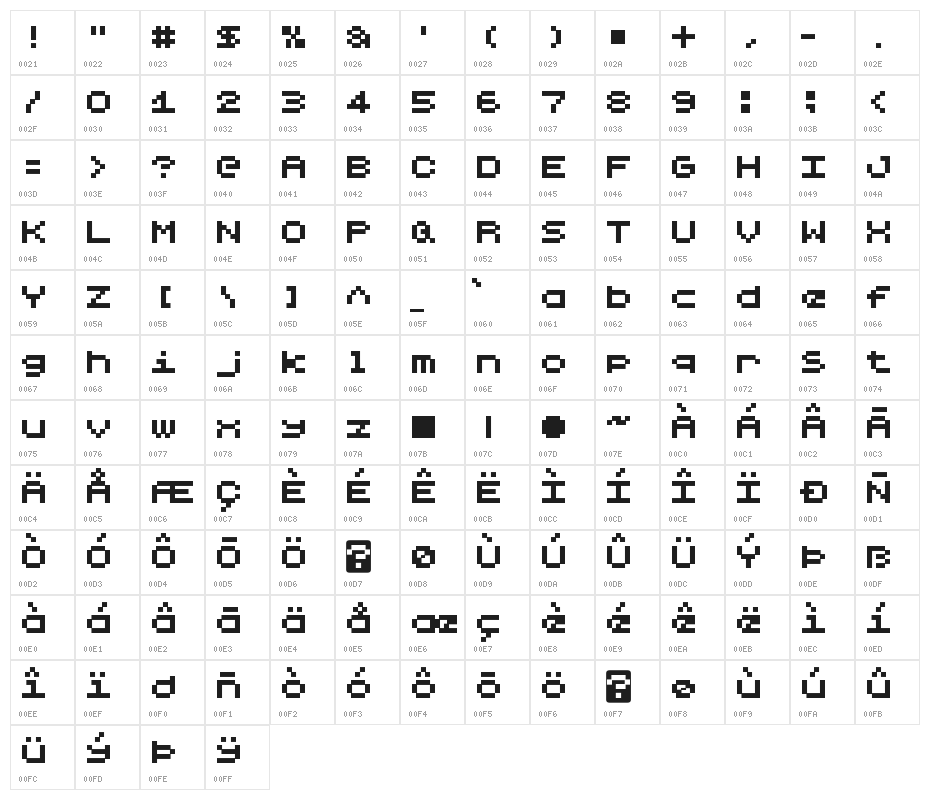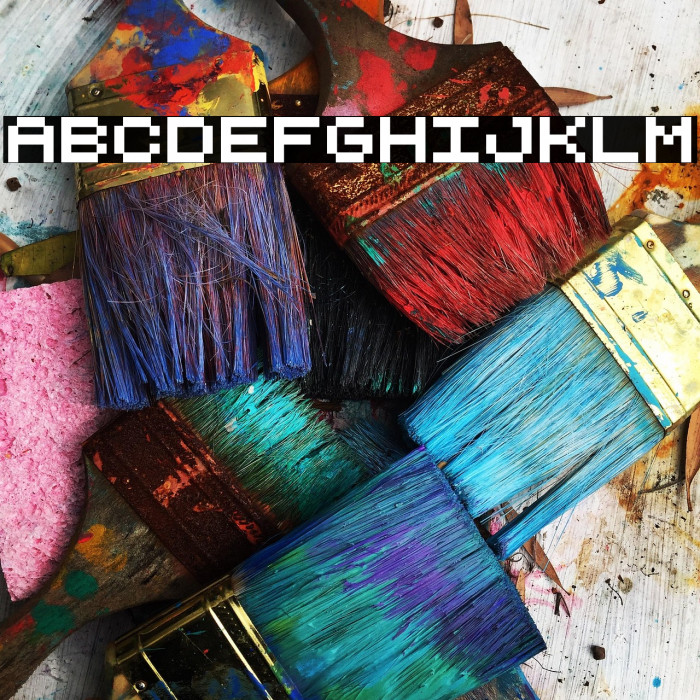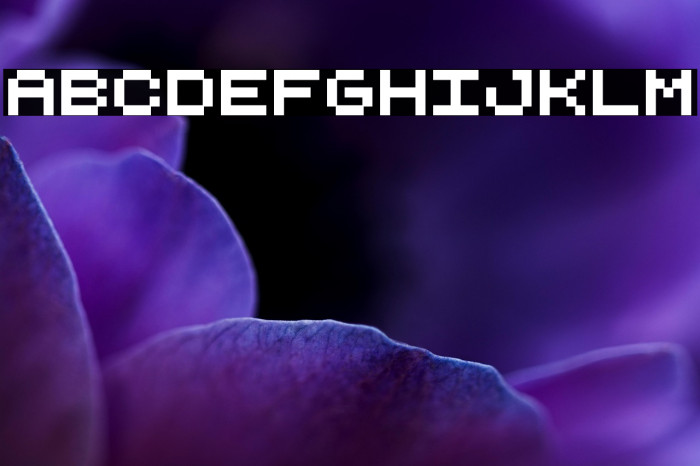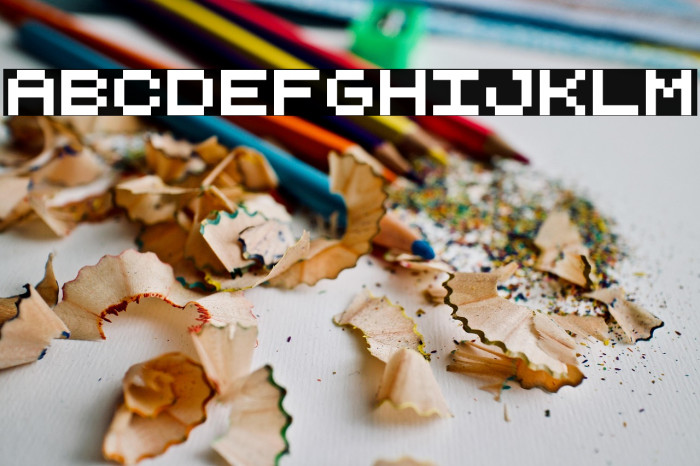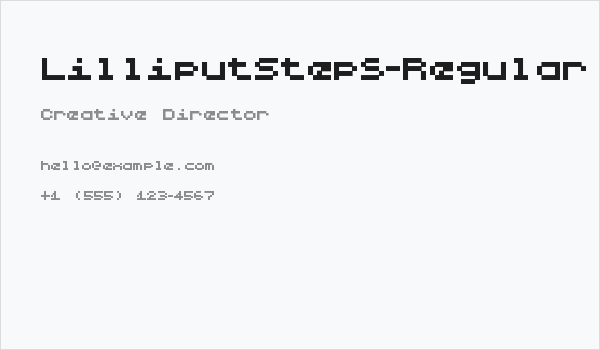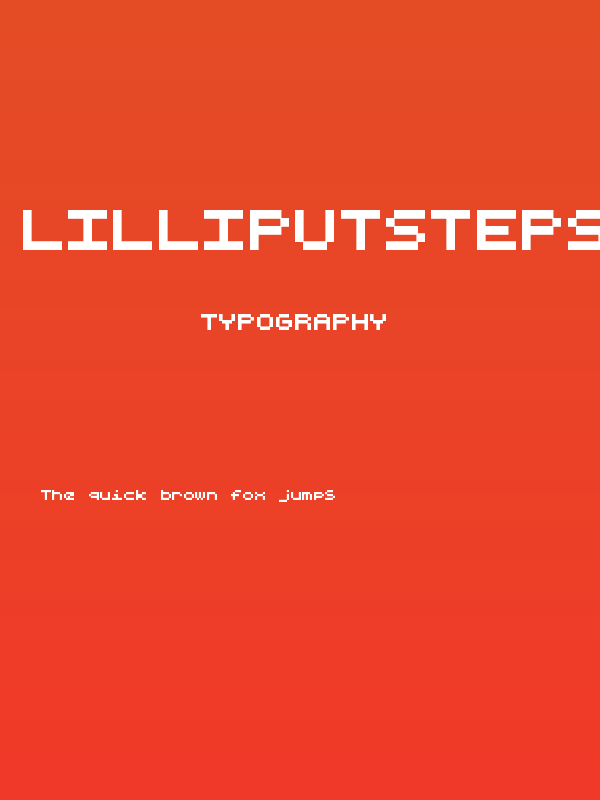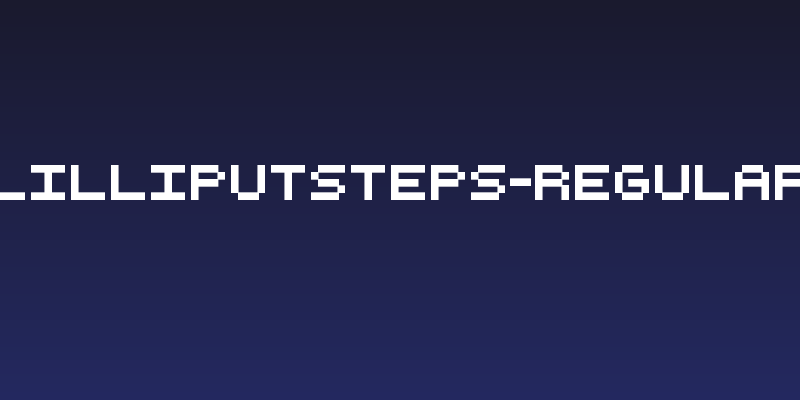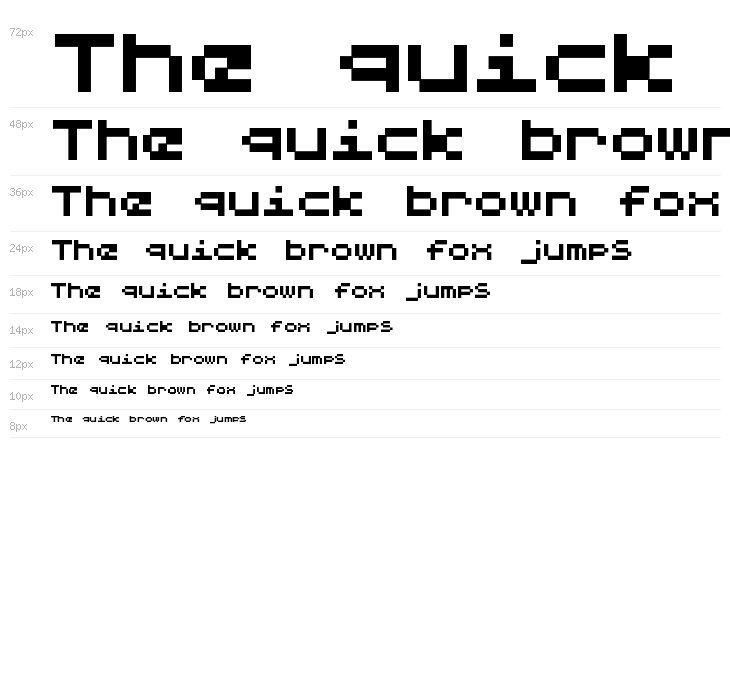
LilliputSteps-Regular Font
LilliputSteps-Regular Description
This font features a pixelated, blocky design reminiscent of early digital displays and retro video games. Each character is constructed with a grid-like precision, giving it a distinctly digital and geometric appearance. The uppercase and lowercase letters maintain a consistent height, contributing to a uniform look. The numerals and special characters follow the same pixelated style, ensuring cohesion across all glyphs. This font's simplicity and clarity make it highly legible, even at smaller sizes, while its unique style adds a nostalgic, tech-inspired flair to any project.
| Overall Style | Retro, Digital |
| Use Case | Headlines, Logos, Digital displays |
| Proposed Projects | Ideal for retro video game designs, tech-themed posters, digital art, and any project seeking a nostalgic or digital aesthetic. |